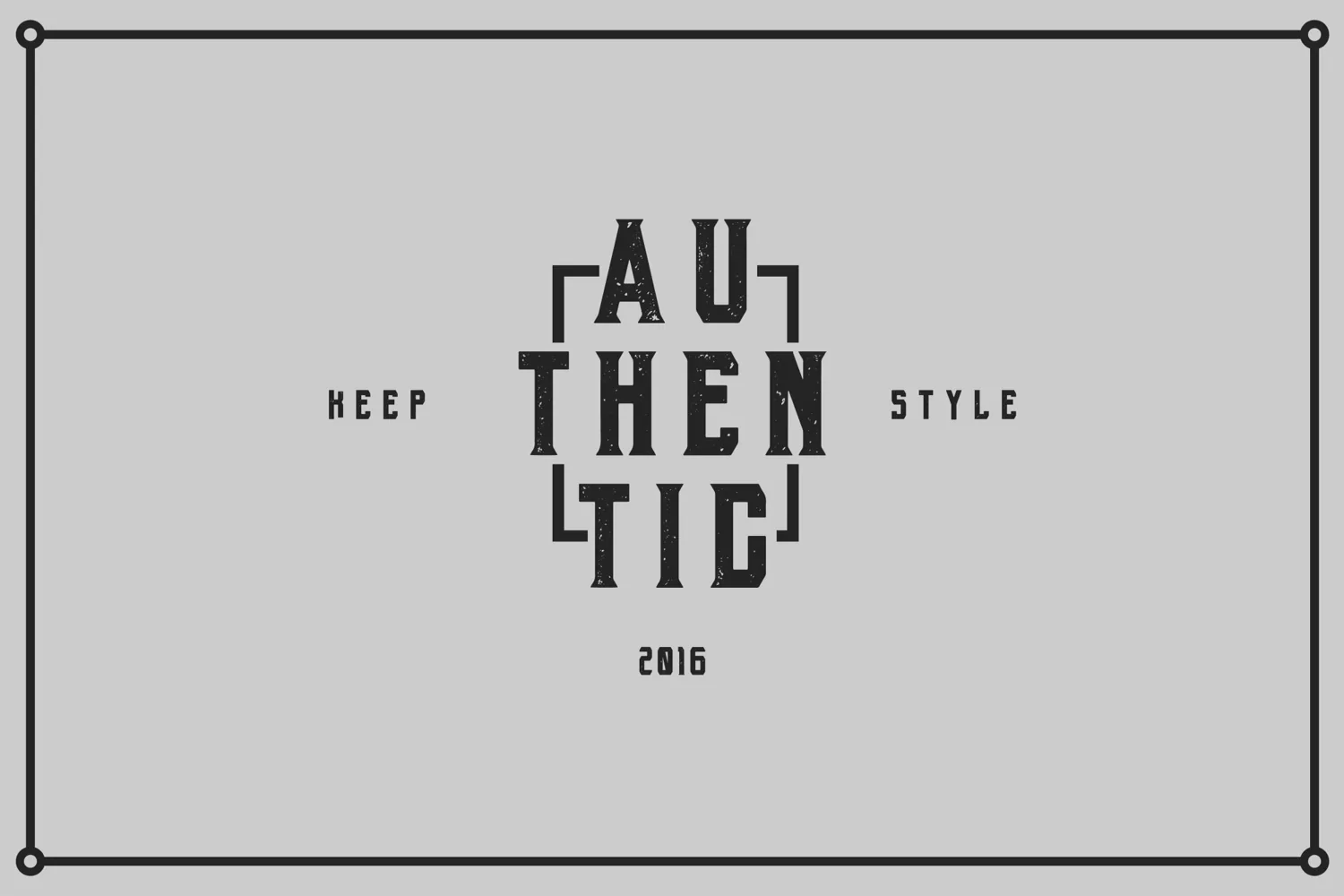
Black Mask - Display
The Black Mask Typeface is a vintage inspired display font, BlackMask comes in Press versions. and Use for awesome display, labeling, clothing, movie sceen, party poster, movie title, gigs, album covers, logos, and much more.